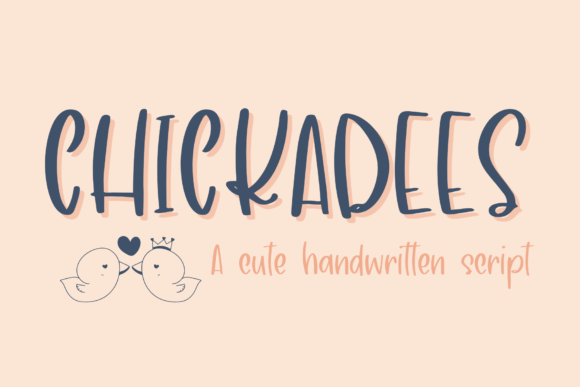
The Sweet Charm of Chickadees Font: A Designer’s Delight
I’ll never forget the time I was working on a whimsical greeting card project, searching for the perfect handwritten font to bring my design to life. My client wanted something playful, yet elegant, and I was determined to deliver. That’s when I stumbled upon Chickadees Font – a cute, handwritten gem that instantly captured the essence of my project. In this article, I’ll share my experience with Chickadees Font, its features, and how to make the most of this beautiful font in various design platforms.
First Impressions: What I Love About Chickadees Font
Chickadees Font is a sweet, handwritten font that’s perfect for a variety of design projects, from fun logos and greeting cards to t-shirt designs, stickers, and social media graphics. Here are some things I love about this font:
- ✨ Playful and whimsical: Chickadees Font has a carefree, hand-written feel that’s perfect for designs that require a personal touch.
- ✅ Highly versatile: This font is suitable for a wide range of projects, from digital designs to print materials.
- 💫 Elegant and refined: Despite its playful nature, Chickadees Font has an elegant quality that makes it suitable for more sophisticated designs.
Honest Review: A Few Quirks to Consider
While Chickadees Font is an excellent choice for many design projects, there are a few quirks to consider:
- 🤔 Limited character set: As with any font, there may be limitations to the character set, so it’s essential to test the font with your specific design requirements.
- ⚠️ Not suitable for body text: Due to its playful, handwritten nature, Chickadees Font may not be the best choice for large blocks of body text.
The Story Behind Chickadees Font
Chickadees Font was designed with the intention of creating a beautiful, handwritten font that’s both playful and elegant. The designer aimed to capture the whimsical nature of handwritten script, while maintaining a level of sophistication that’s suitable for a wide range of design projects.